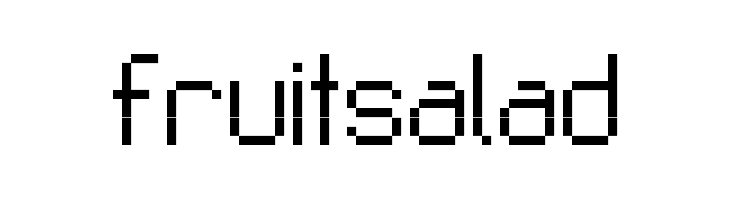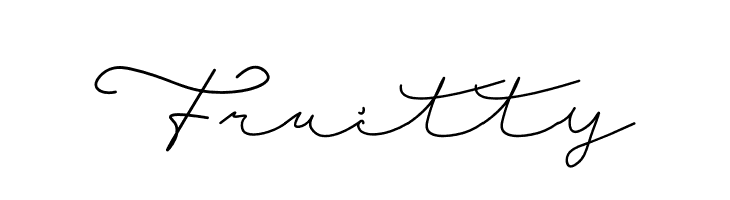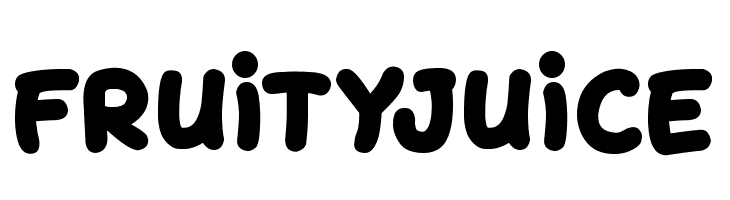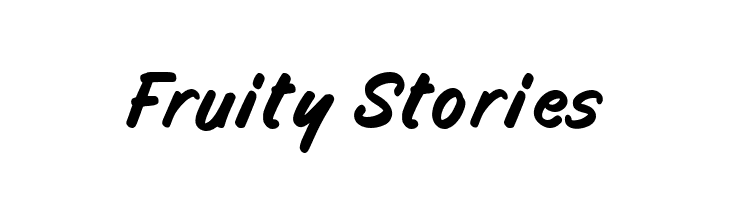
A playful, bold font with rounded, bubbly characters perfect for creative projects.
Casual handwritten font with a playful style.
A pixelated, grid-based font with a retro digital aesthetic.
An elegant, flowing script font with smooth, continuous strokes and delicate curves.
A playful, hand-drawn font with bold, irregular characters and a whimsical style.
A playful, bold font with rounded, bubbly characters and a hand-drawn feel.
A bold, rounded, and playful font with a smooth, flowing style.
A playful, bold typeface with rounded, bubbly characters ideal for fun and creative designs.
A bold, handwritten-style font with rounded, playful characters.
A playful, blocky font with a digital, pixel-art style.